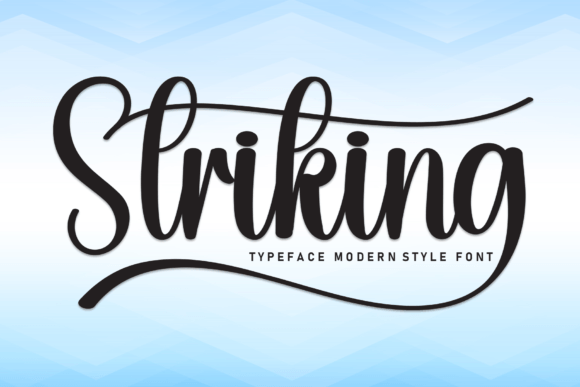
Immerse yourself in the world of modern calligraphy with the Striking Font, a script font family that embodies elegance and sophistication. Step into a world where your words dance gracefully across the page, leaving a trail of beauty and inspiration.
Crafted by the talented hand of William Jhody, Striking is a masterpiece that captures the essence of handwritten artistry. Each letter flows effortlessly, connecting with its neighbors in a seamless embrace. Its delicate curves and playful flourishes add a touch of whimsy, while maintaining a sense of timeless grace.
With Striking, you hold the power to transform ordinary text into extraordinary works of art. Its versatility shines through in a myriad of applications, from wedding invitations and thank-you cards to logos, business cards, and social media graphics. Its presence elevates any project, adding a touch of personalization and charm.
Whether you're a seasoned designer or just starting your creative journey, Striking is your perfect companion. Its user-friendly nature makes it accessible to all, allowing you to effortlessly create stunning designs that captivate and inspire.
Embark on a creative odyssey with Striking, the font that sets your imagination free. Let your words take flight, carried by the wings of this modern masterpiece. Transform your designs into captivating works of art, leaving an unforgettable impression on all who behold them.